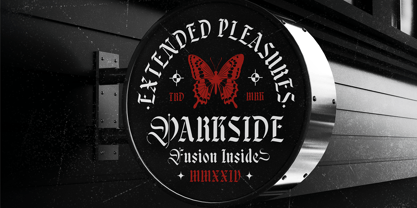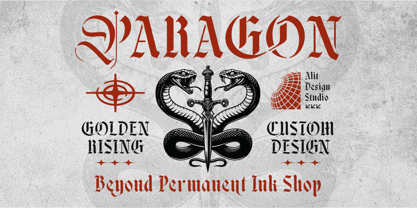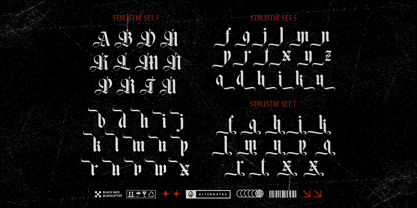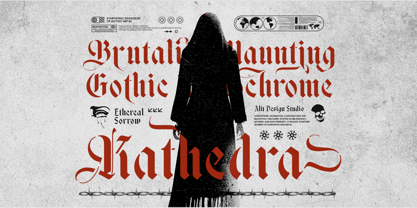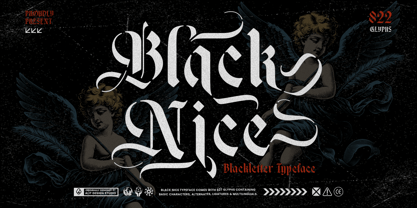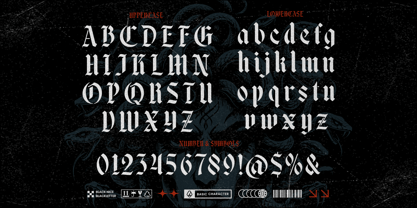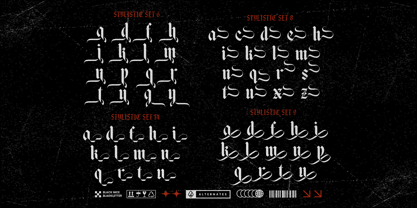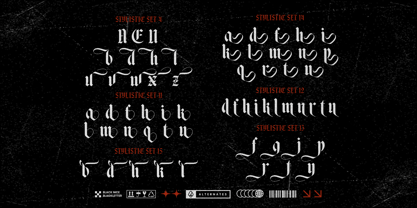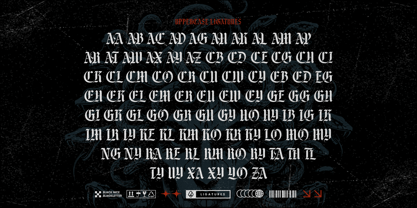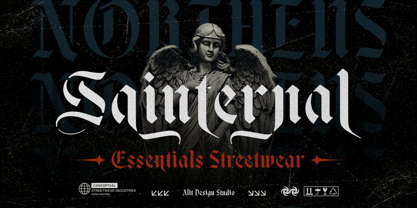
Black Nice
Black Nice Typeface – A Bold Fusion of Blackletter & Stencil
Black Nice Typeface is a striking blend of blackletter elegance and stencil precision, designed to give your typography an unmistakable presence. Whether you're working on branding, apparel, posters, tattoos, packaging, or editorial projects, this typeface offers the perfect balance of vintage gothic style and contemporary stencil aesthetics.
Designed for Impact & Versatility
With its stencil-inspired cutouts, Black Nice Typeface maintains the intricate beauty of traditional blackletter forms while ensuring optimal readability. Every curve and gap is meticulously calculated, ensuring the structural integrity of each letter remains intact—making it functional for both print and digital media.
Font Features:
🏆 Massive Character Set822 Glyphs
• A comprehensive set of characters to give you ultimate creative freedom.
• Includes uppercase & lowercase letters, numbers, punctuation, and special characters.
Alternates & Swashes – Customize Your Style
• Choose from a variety of alternate letterforms to add unique flair to your text.
• Elegant swashes provide decorative touches, perfect for sophisticated typography.
🔗 Ligatures – Seamless Letter Connections
• Naturally flowing ligatures enhance the beauty of text, creating a handcrafted feel.
Perfectly Engineered Stencil Cuts
• Stencil segments are carefully designed so they do not break the letter structure.
• Ensures maximum legibility and visual balance, even at smaller sizes.
🌍 Multilingual Support – Global Usability
• Supports multiple languages, including English, Spanish, German, French, Italian, and more.
• Perfect for international branding and typography projects.
Where to Use Black Nice Typeface?
Branding & Logos – Make bold statements with an unforgettable visual identity.
Apparel & Merchandise – Perfect for gothic, streetwear, and tattoo-inspired designs.
Posters & Flyers – Create high-impact headlines with strong blackletter aesthetics.
Editorial & Book Covers – Ideal for historical, fantasy, or dark-themed projects.
Packaging & Labels – Bring a premium, handcrafted feel to product branding.
Make Your Typography Stand Out with Black Nice Typeface!
Whether you’re designing for modern gothic, vintage metal, or urban streetwear, Black Nice Typeface gives you the power to create bold, intricate, and timeless designs.